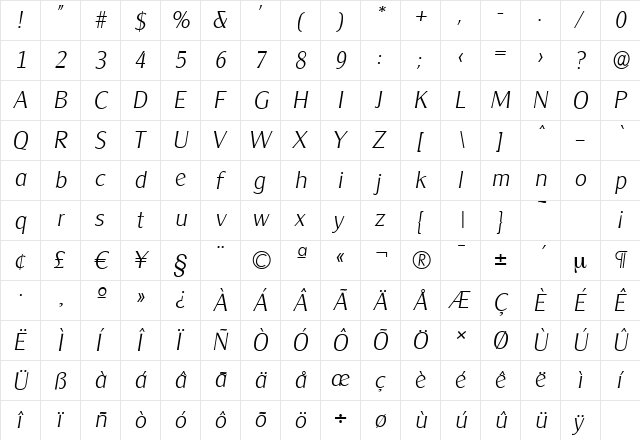
ClearGothicSerial-Xlight Italic Font Preview
Design Context for ClearGothicSerial-Xlight Typeface
ClearGothicSerial-Xlight takes a clean, functional approach — its unadorned letterforms prioritise legibility and work reliably across screen and print environments. The dynamic lean of this cut emphasises speed and emphasis in any layout. The delicate stroke weight brings airiness and refinement to layouts.
Ideal for fashion and beauty branding, minimal editorial layouts, and premium digital experiences.
Font Pairing: Pair ClearGothicSerial-Xlight with a medium or bold serif for headlines — the weight contrast creates an elegant, high-end feel.
Pro Tip: Avoid using ClearGothicSerial-Xlight at very small sizes where its slender strokes can disappear. It performs best at medium to large sizes.